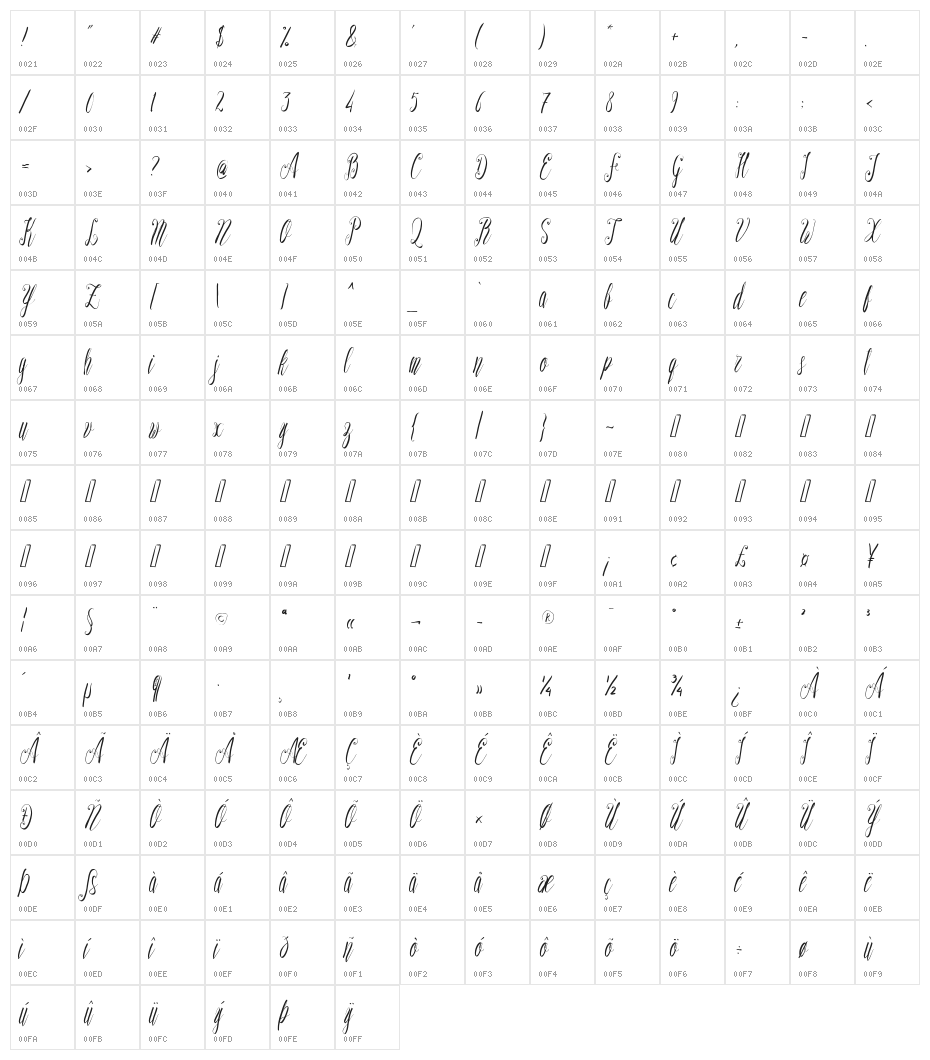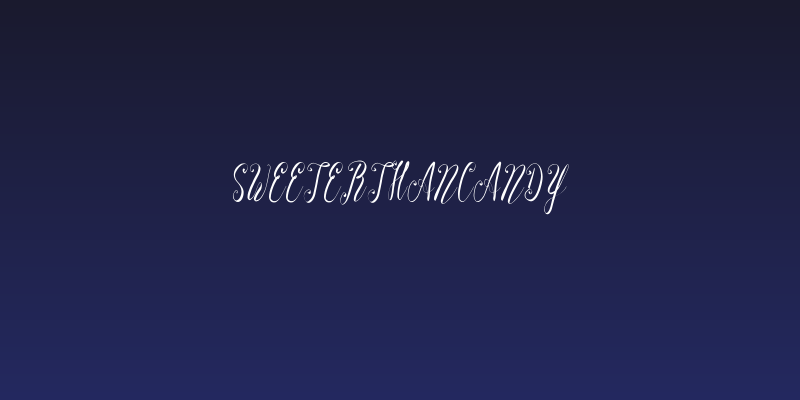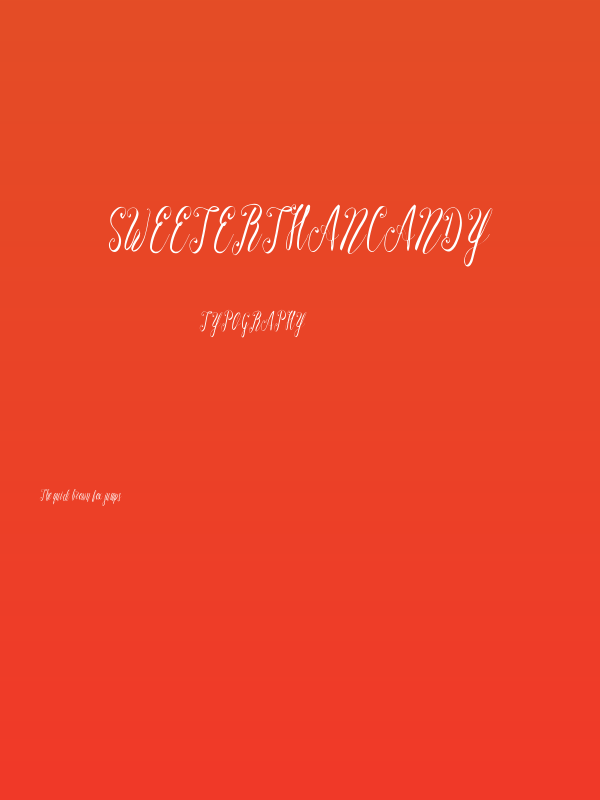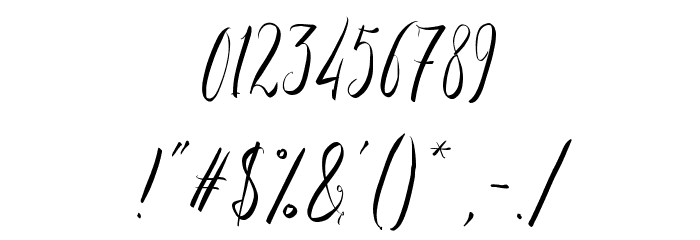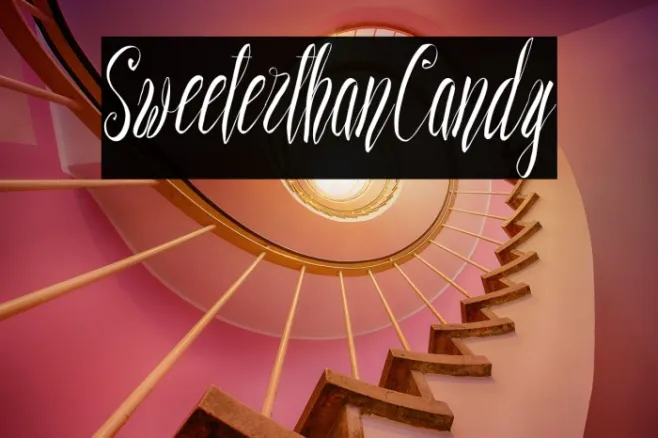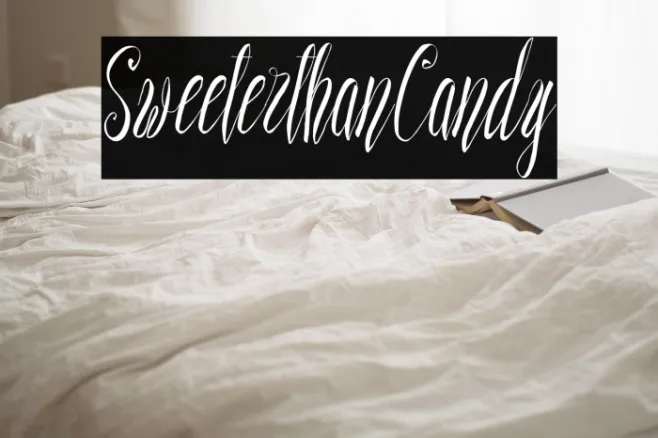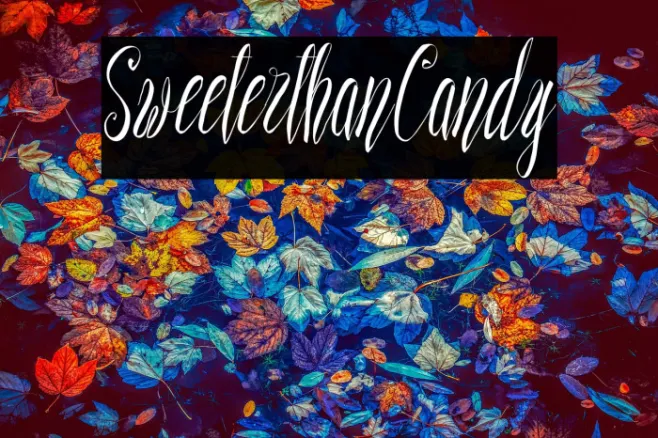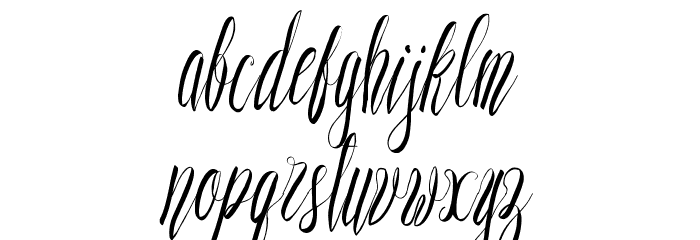
SweeterthanCandy Font
SweeterthanCandy Description
This elegant script font features a flowing, cursive style with intricate swirls and flourishes. The uppercase letters are particularly ornate, with exaggerated loops and curves that give the font a sophisticated and decorative appearance. The lowercase letters maintain a consistent style, with smooth connections between characters, enhancing the font's fluidity. Numbers and special characters are designed to match the overall aesthetic, ensuring a cohesive look across all text. The font's delicate strokes and high contrast between thick and thin lines add to its graceful and refined character.